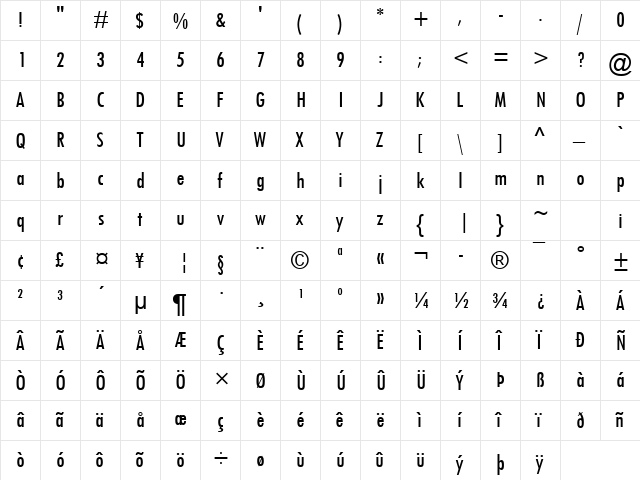
Tw Cen MT Condensed Medium
| Foundry | Monotype Typography |
| Designer | Sol Hess |
Design Context for Tw Cen MT Condensed Typeface
Tw Cen MT Condensed is a composed and adaptable typeface that performs quietly and consistently across a wide range of design contexts. Its narrow stance lets it pack a punch even in space-constrained designs.